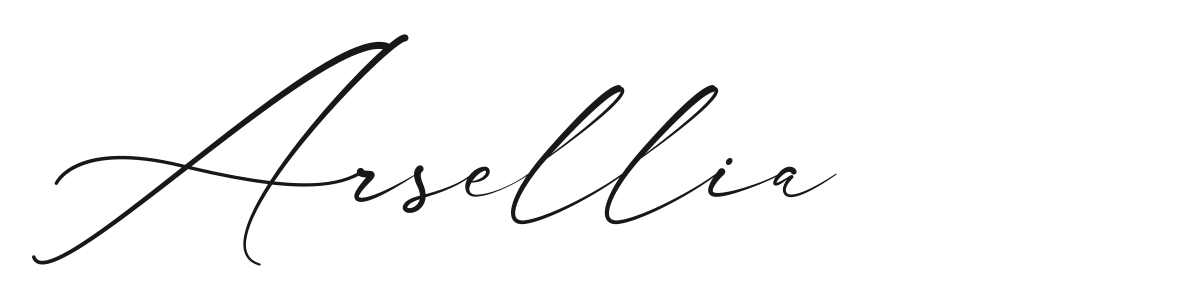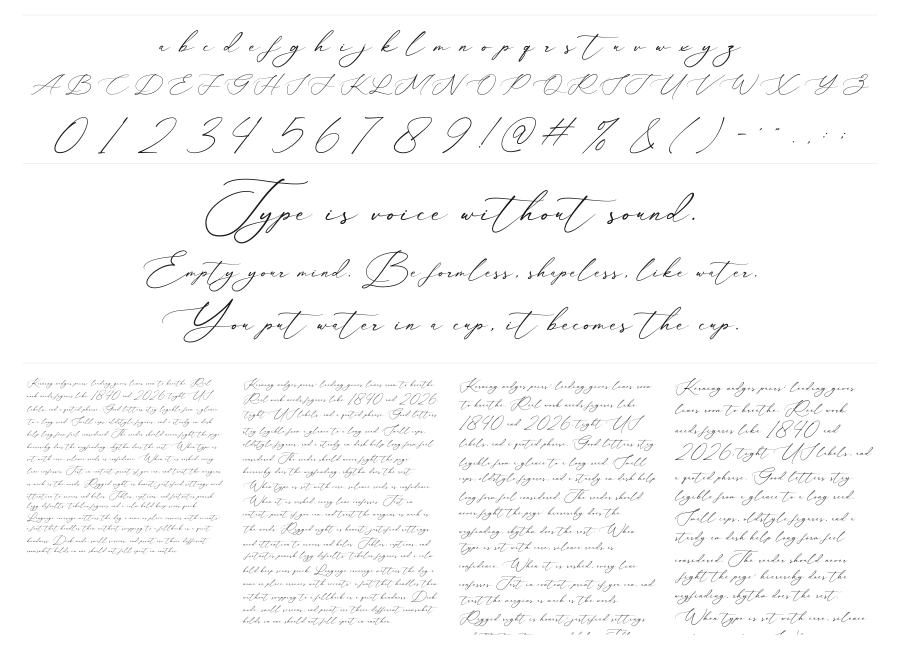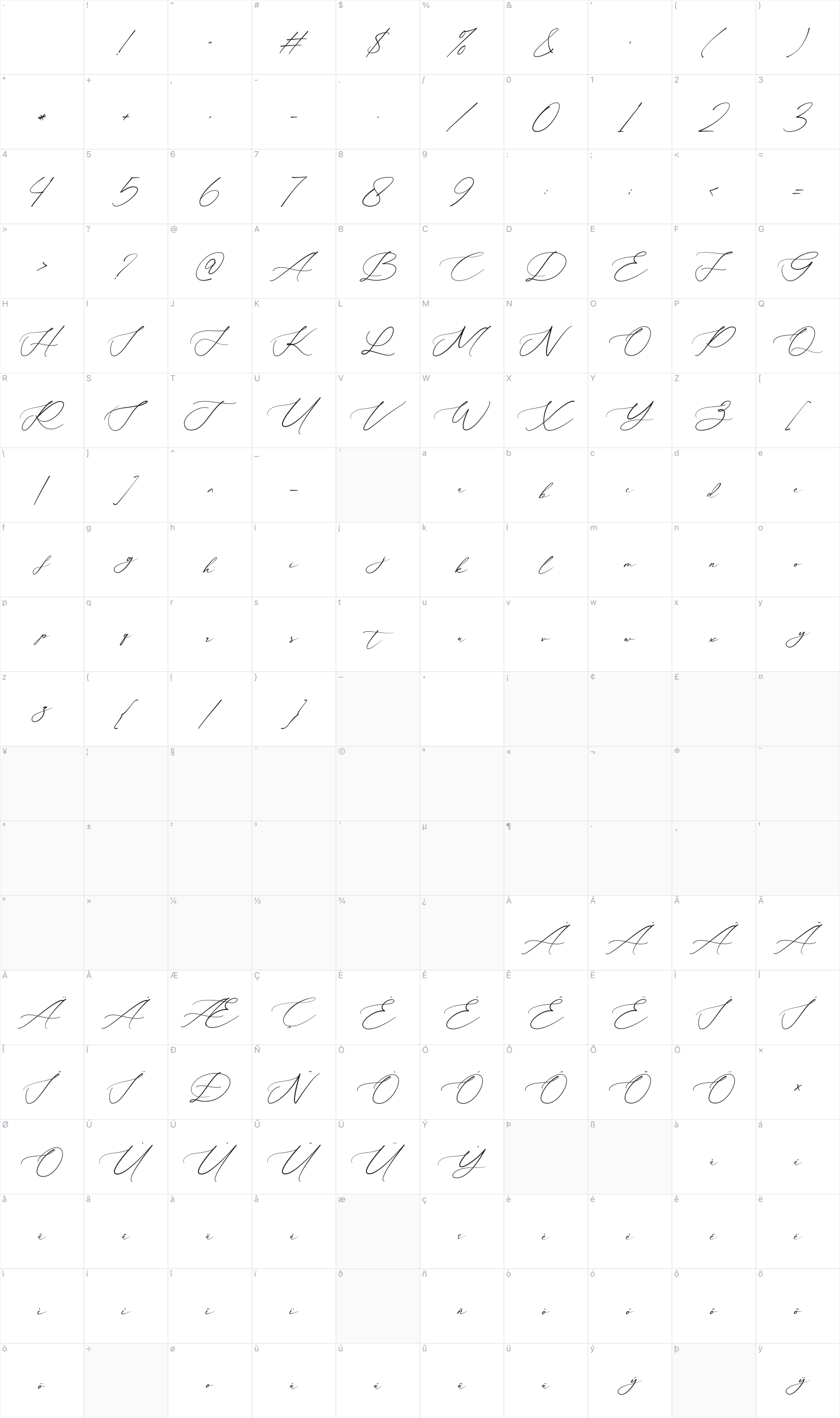
Arsellia
Arsellia is a flowing formal script rooted in the copperplate and Spencerian calligraphy tradition. Long looping ascenders and descenders sweep across the baseline with dramatic flair, balanced by the high contrast between hairline upstrokes and bold curved stems. It carries the kind of hand-lettered warmth that works across wedding invitations, editorial headers, and premium packaging.